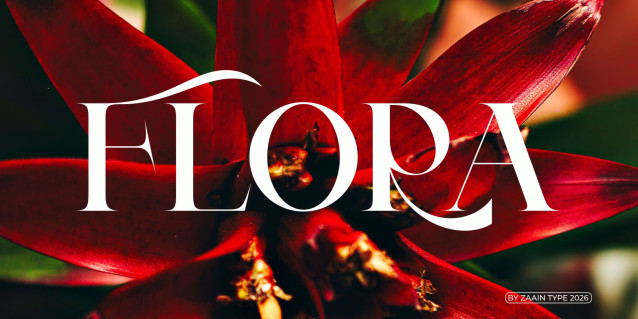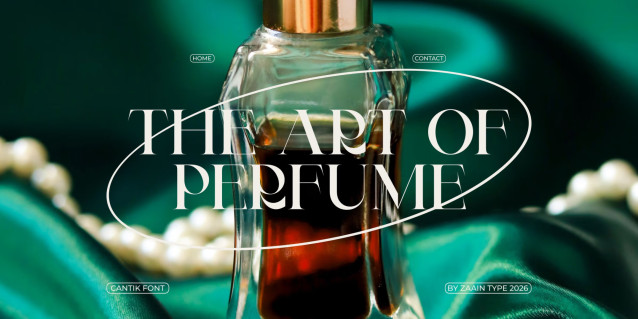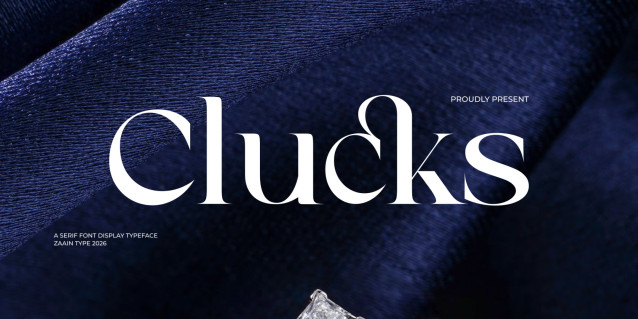
Clucks Font is an elegant modern serif typeface crafted to bring sophistication, style, and timeless beauty to your creative projects. Featuring graceful letterforms, refined contrast, and beautifully balanced proportions, Clucks is designed to make every word stand out with confidence and class.
Whether you’re creating luxury branding, editorial layouts, fashion campaigns, cosmetic packaging, wedding stationery, or premium logos, Clucks delivers a polished and professional look that effortlessly enhances your designs. Its distinctive serif details combine classic inspiration with a contemporary touch, making it suitable for both modern and vintage-inspired aesthetics.
Clucks is a versatile display serif that works beautifully for headlines, magazine covers, social media graphics, product packaging, book covers, photography watermarks, invitations, and elegant visual identities. Every character is carefully crafted to provide excellent readability while maintaining a unique and memorable appearance